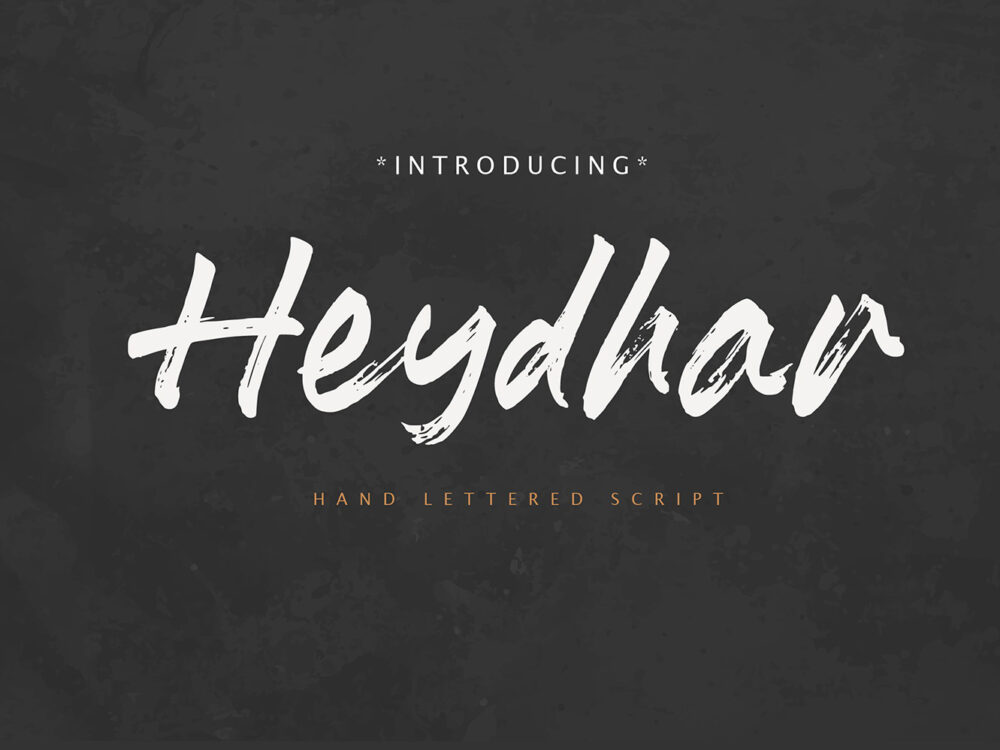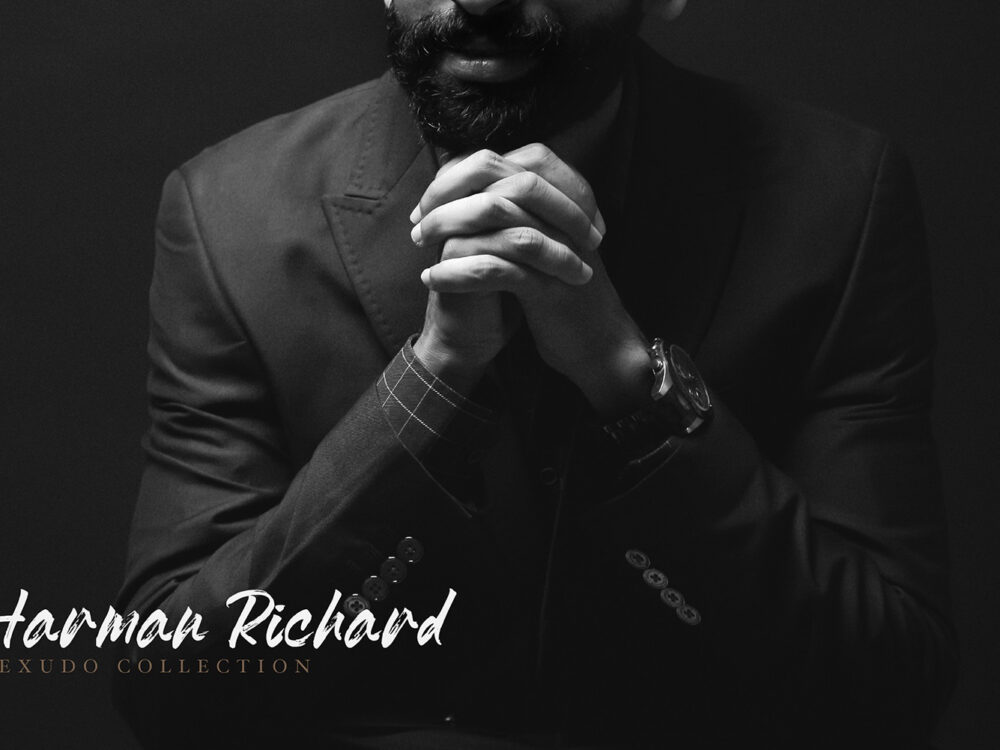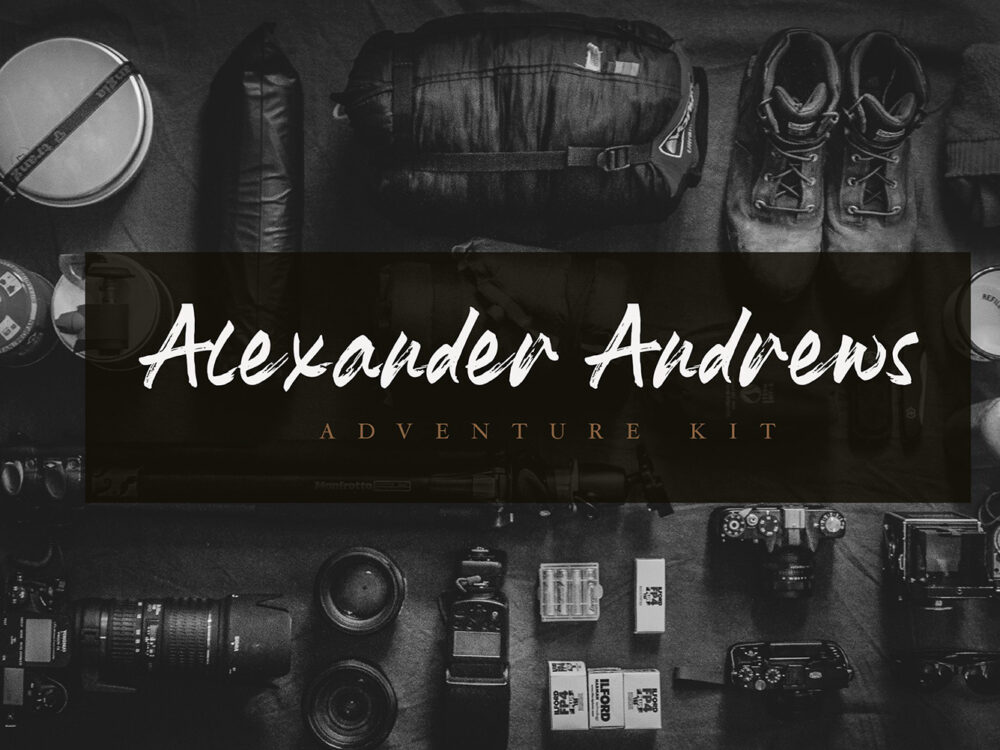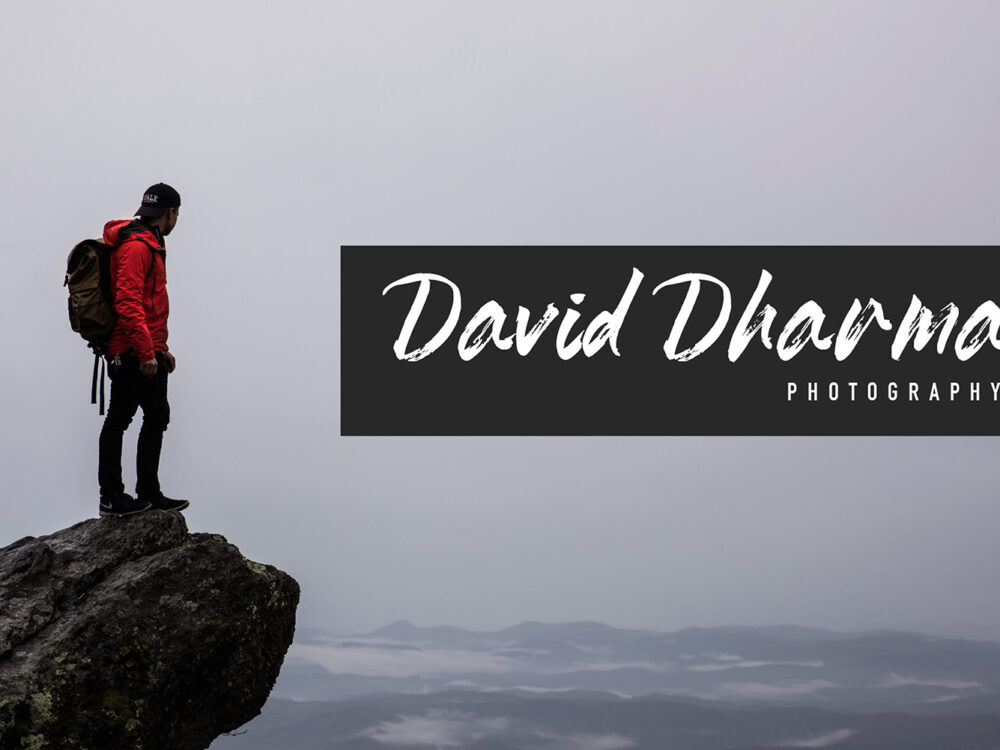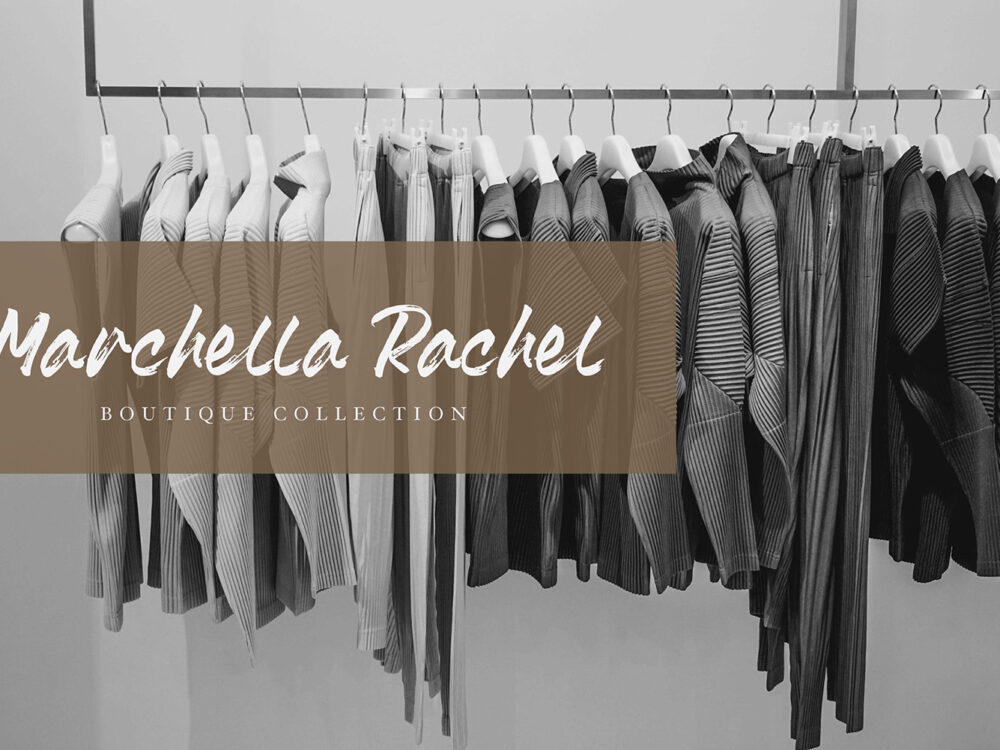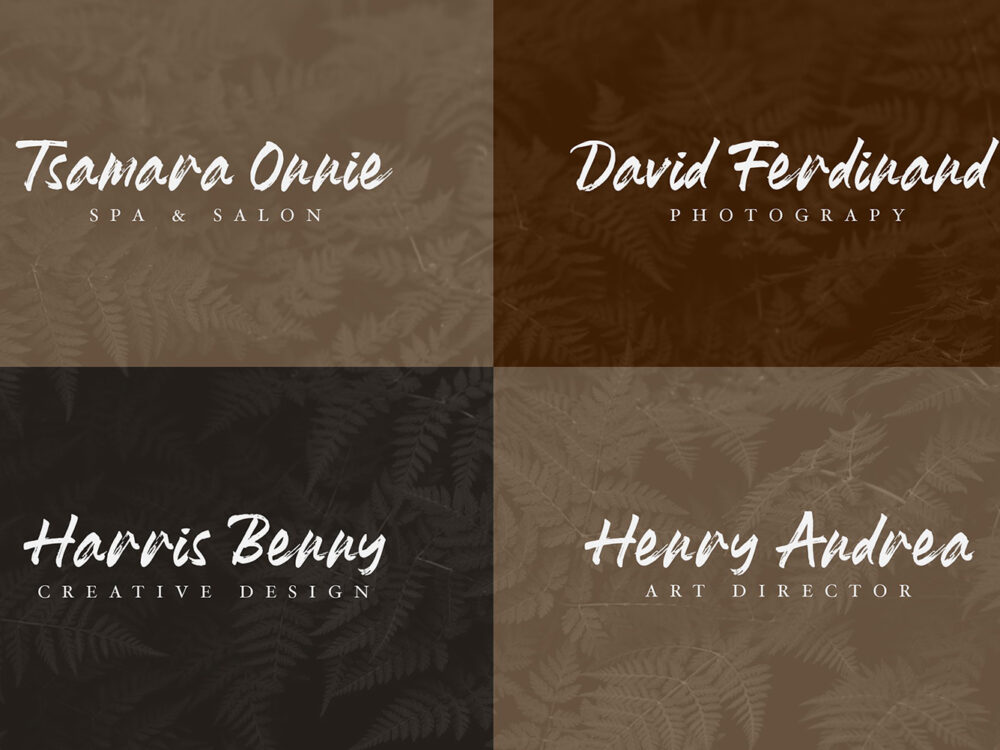
Free Heydhar Brush Font
The beautiful handwritten Free Heydhar Brush Font will help add uniqueness and freshness to your design project. Use it to unleash your creativity in creating wedding cards, headlines, restaurant menus, and more. The font is a demo version, free for personal use only. Please purchase the full version for commercial use.